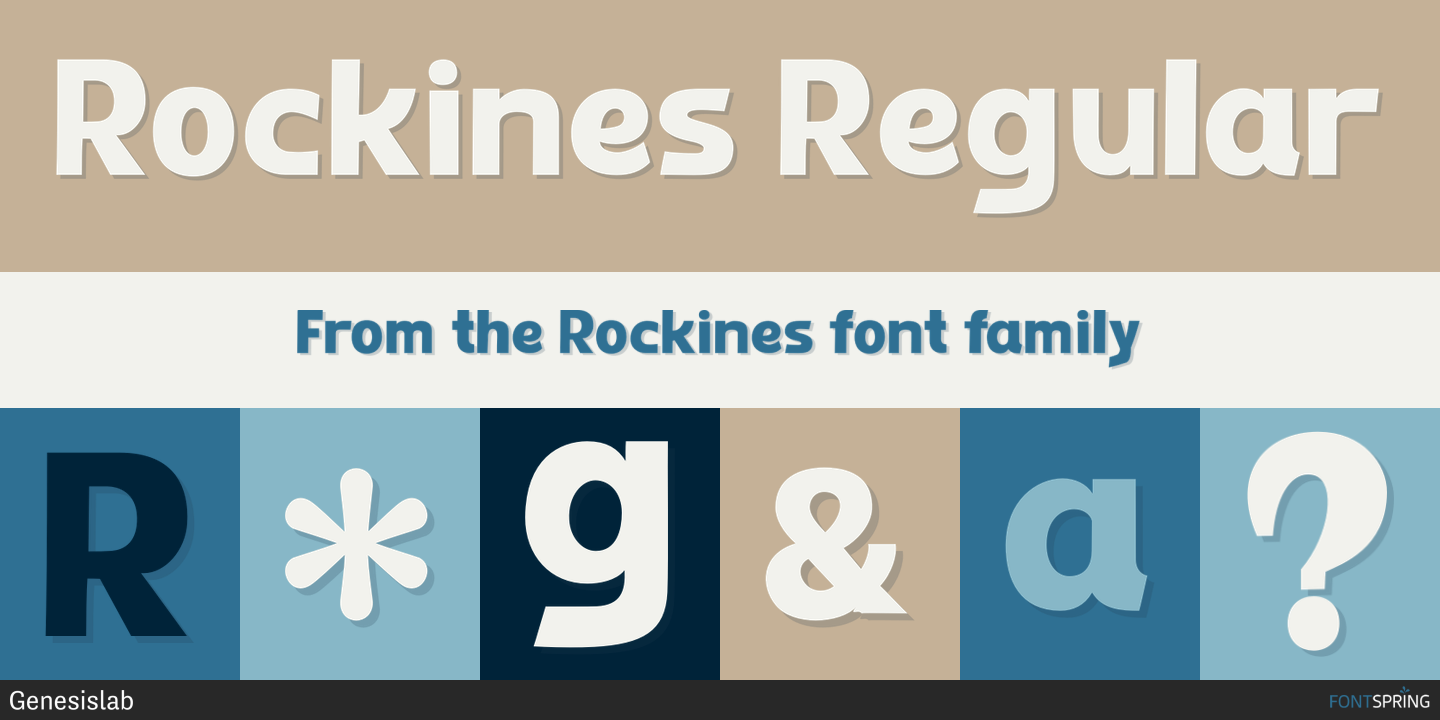
Rockines
Rockines is a serif font family published by Genesislab.
Rockines overall look and elegance. One of my latest first releases, hand drawn with great accuracy. Rockines has the perfect simplicity and refinement for your next project. This font perfectly represents the retro and vintage aesthetic. I recommend this font for your next logo, invitation, and home decor project that needs a touch of concise alternative combination!